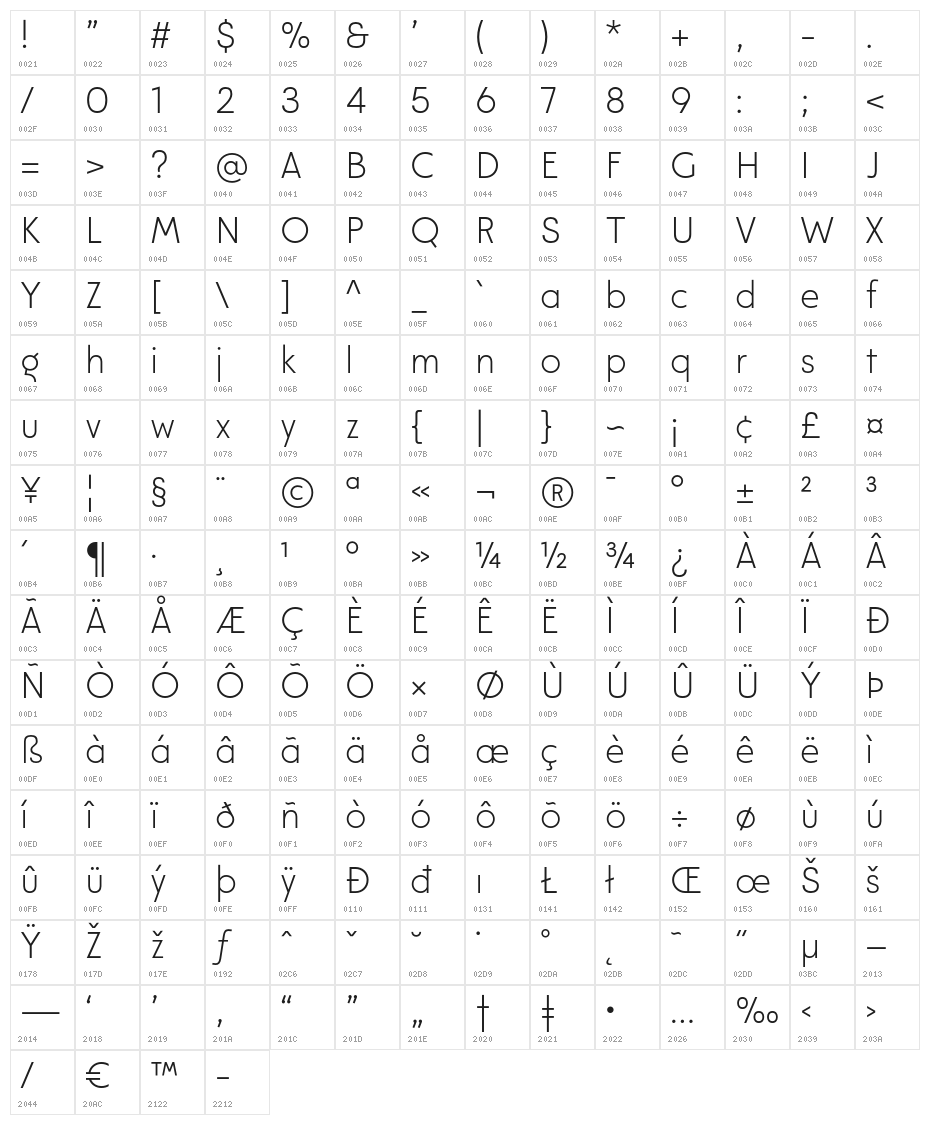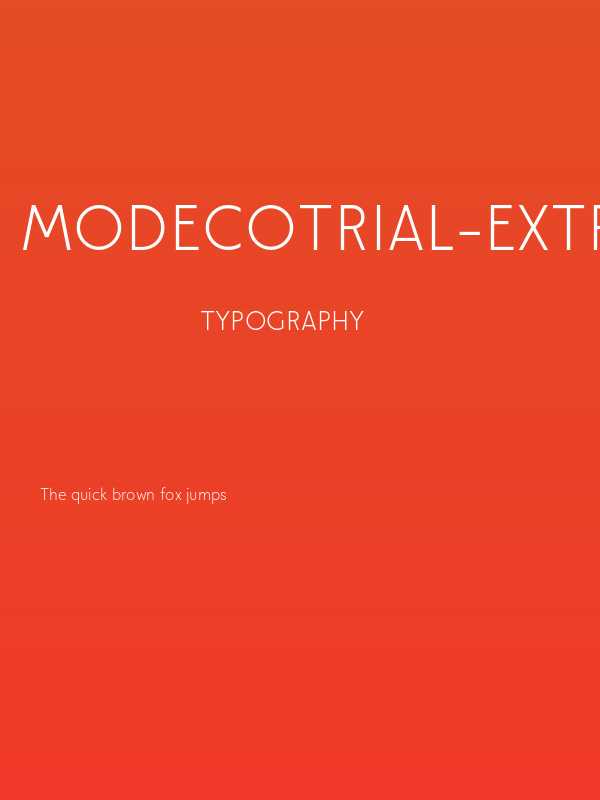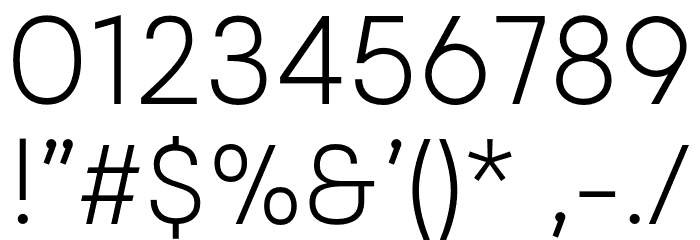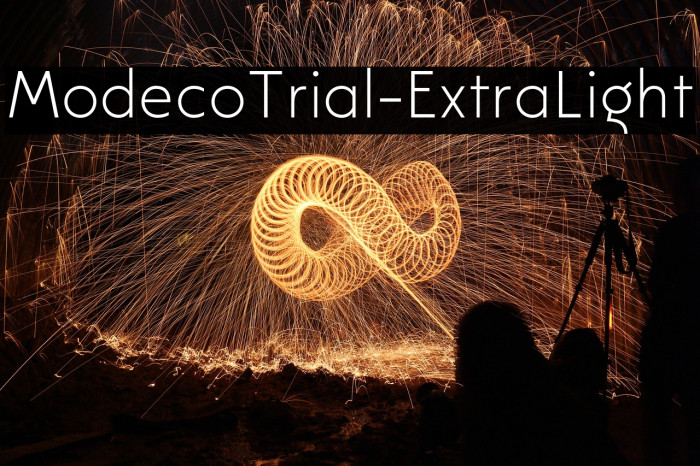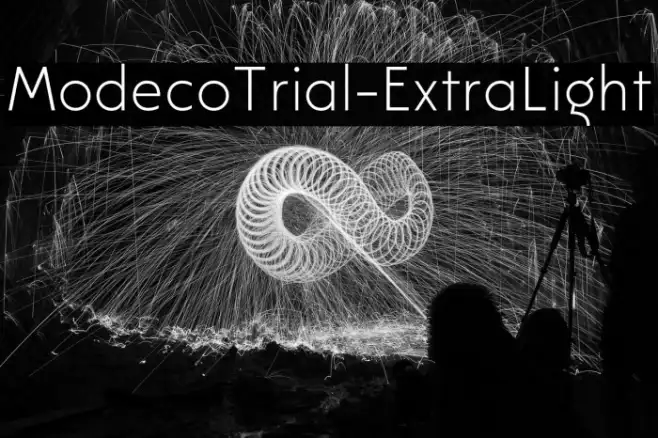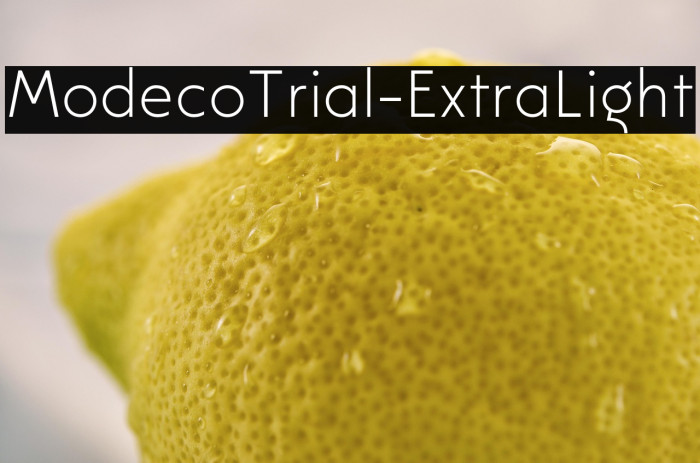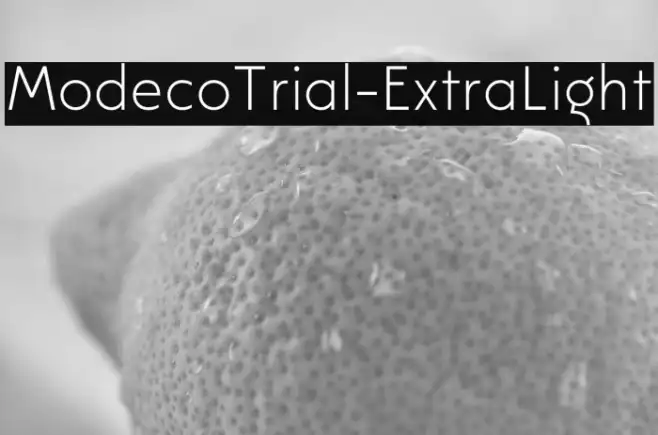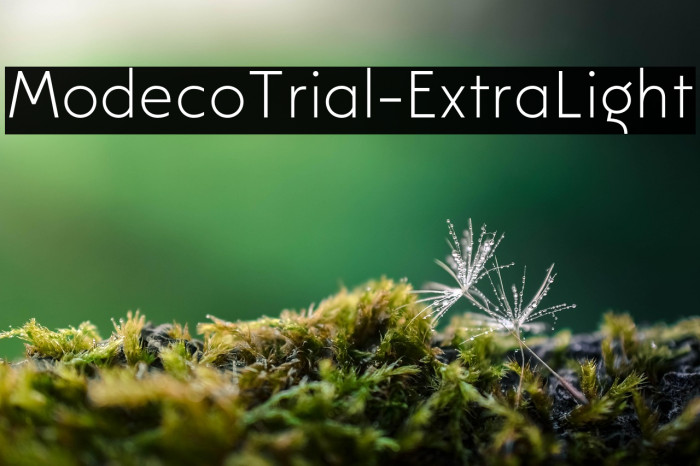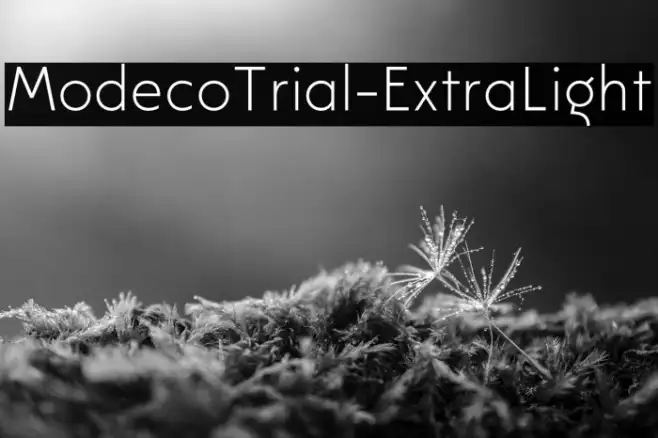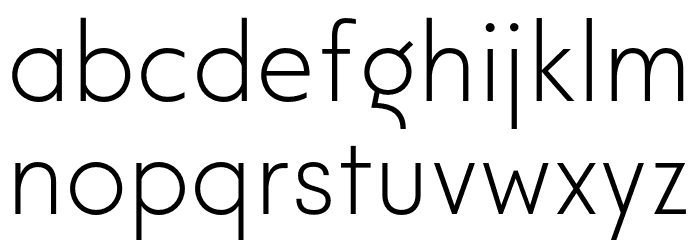
ModecoTrial-ExtraLight Font
ModecoTrial-ExtraLight Description
This font features a clean and modern sans-serif design with a geometric structure. The characters are uniform and balanced, with a consistent stroke width that gives it an elegant and minimalistic appearance. The uppercase and lowercase letters are well-proportioned, and the numerals are clear and legible. The special characters are designed to complement the overall style, maintaining the font's sleek and contemporary look. Its simplicity and clarity make it versatile for various design applications.
| Proposed Projects | Ideal for branding, web design, editorial layouts, and corporate identity projects. |